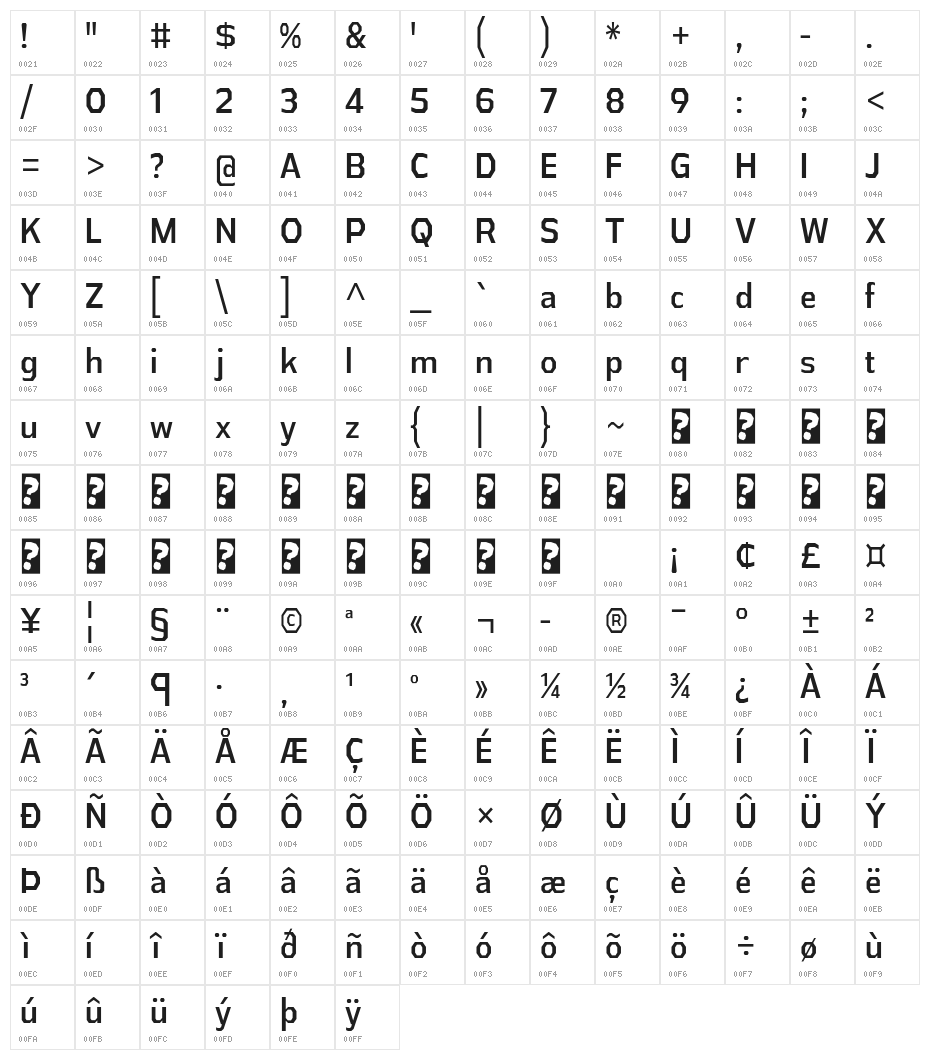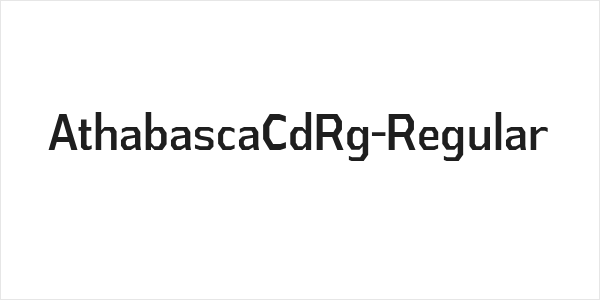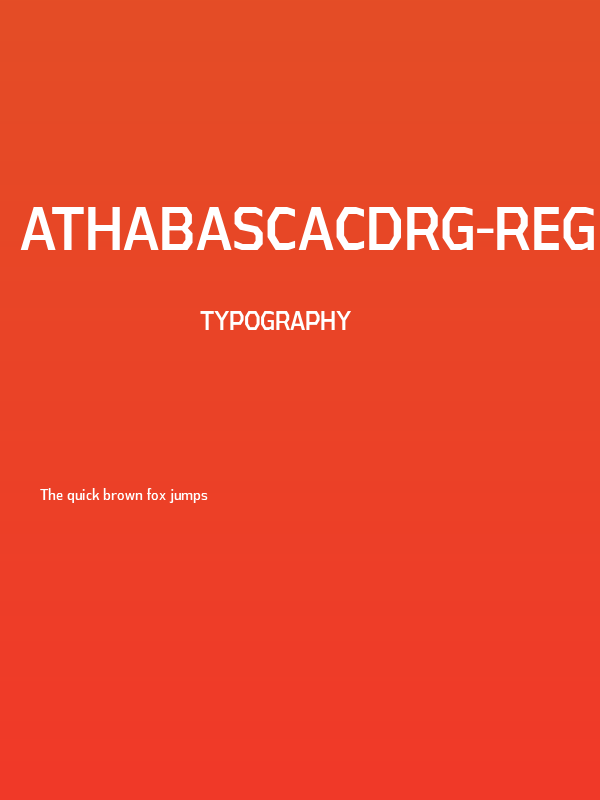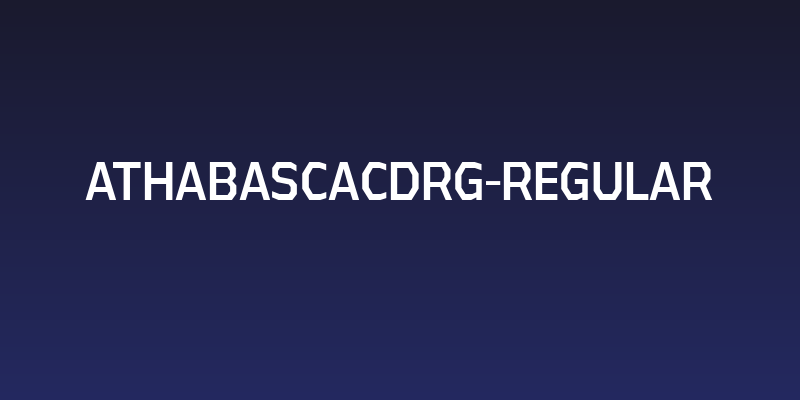
AthabascaCdRg-Regular Font
AthabascaCdRg-Regular Description
This font features a bold and geometric design, characterized by its strong, angular lines and modern aesthetic. The uppercase letters are particularly striking, with a uniform height and width that create a sense of balance and stability. The lowercase letters maintain this geometric style, offering a cohesive look across both cases. The numerals are equally bold, ensuring readability and impact. Special characters are designed with the same attention to detail, making them stand out while remaining consistent with the overall style. The font's clean lines and sharp angles make it ideal for projects that require a contemporary and assertive appearance.
| Proposed Projects | Ideal for branding, headlines, posters, and digital media that require a modern and impactful look. |